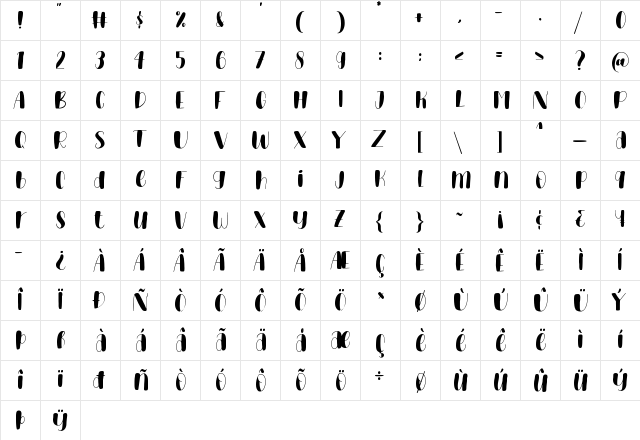
Pancake Mango Regular
| Designer | Muhamad Yusron Billah |
Design Context for Pancake Mango Typeface
Pancake Mango is a composed and adaptable typeface that performs quietly and consistently across a wide range of design contexts.